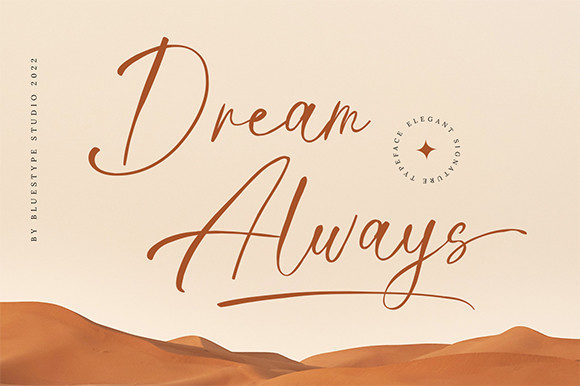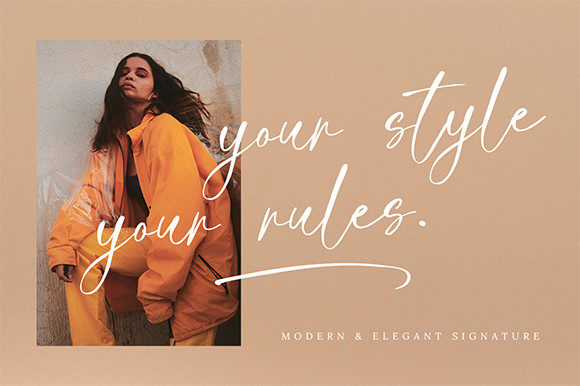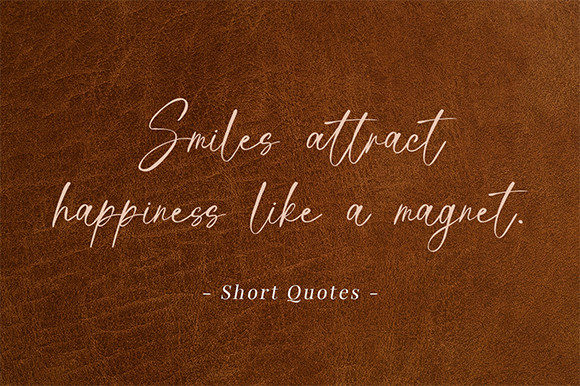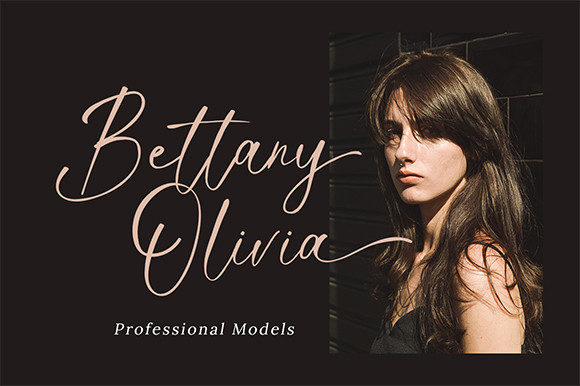
Dream Always Font: Elegant Script for Modern Branding & Wedding Design
About the Dream Always Font
Explore the possibilities with Dream Always Font, a font that offers both beauty and functionality. Dream Always is a relaxed and casual handwritten font. This stylish font will look gorgeous on a variety of design ideas. This font is PUA encoded which means you can access all of the glyphs and swashes with ease.
Dream Always excels in projects requiring a touch of casual elegance; think wedding invitations, social media graphics, or short-form content like quotes and headings. Its relaxed nature makes it ideal for branding focused on artisan goods or small businesses with a friendly, approachable aesthetic. However, its handwritten style isn’t suited for lengthy body text or UI elements where legibility is paramount.
For optimal visual balance, pair Dream Always with a clean sans-serif like Montserrat for a contemporary feel, or a classic serif such as Garamond for a more traditional touch. A playful script font could also complement its casual vibe, though careful consideration of kerning and spacing would be crucial to prevent visual clutter.
The font’s overall personality is friendly and approachable, conveying a sense of warmth and approachability. Its casual elegance makes it a versatile choice for projects that need a touch of handwritten charm without sacrificing readability in shorter applications.